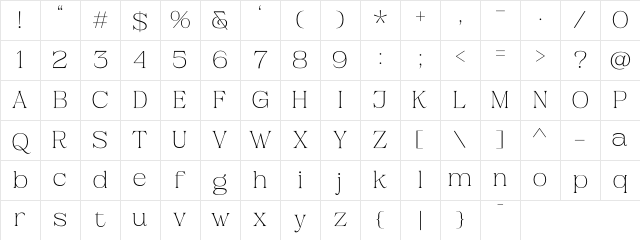
Claire Palmer Demo Serif carries the refined structure of traditional serif typography, with bracketed terminals and considered proportions that communicate credibility and craft.
Pro Tip: Use Claire Palmer Demo Serif for editorial body copy and considered headline work. Pair with a neutral sans for UI elements or captions to create a classic hierarchy.